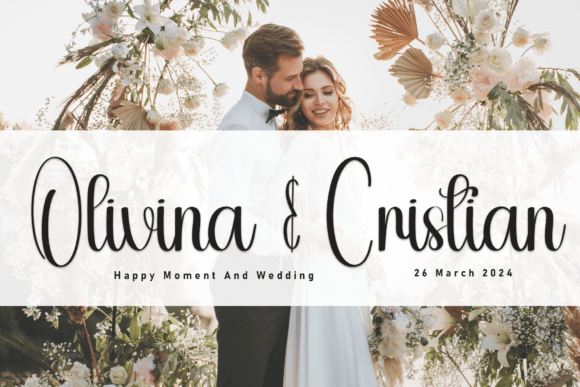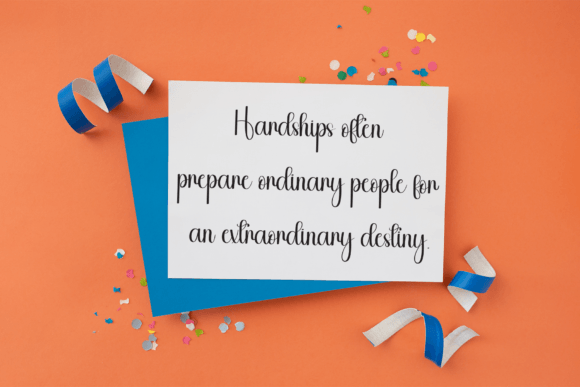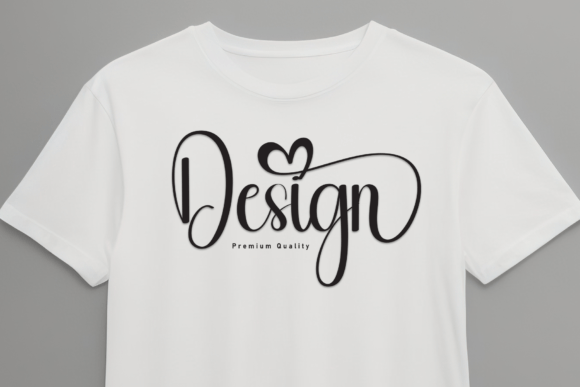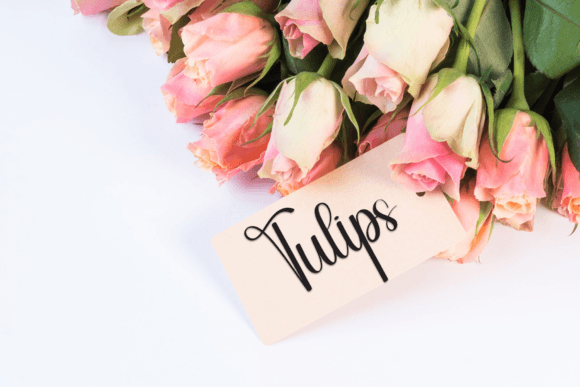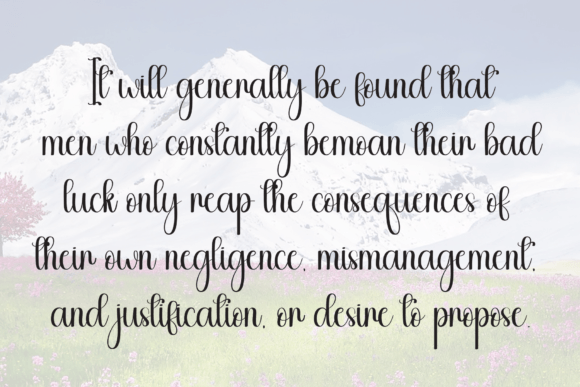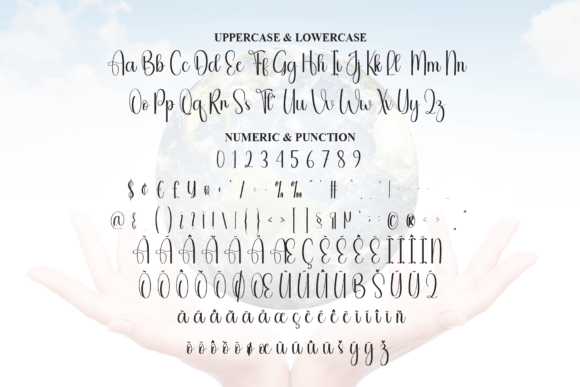
Introducing Earth Font: The Sweet and Friendly Handwritten Display Font
Are you looking for a font that can add a touch of warmth and personality to your designs? Look no further than Earth Font, a beautiful handwritten display font that’s perfect for creating eye-catching wedding invitations, cards, and other creative projects. In this article, we’ll take a closer look at Earth Font, its features, and how you can use it to elevate your designs.
What is Earth Font?
Earth Font is a sweet and friendly handwritten display font that’s designed to bring a sense of fun and playfulness to your designs. With its cute and charming lettering style, this font is ideal for creating designs that require a personal touch. Whether you’re a designer, crafter, or DIY enthusiast, Earth Font is a versatile font that can be used for a wide range of creative projects.
Key Features of Earth Font
So, what makes Earth Font so special? Here are some of its key features:
- Handwritten style: Earth Font has a beautiful handwritten style that’s perfect for creating personal and heartfelt designs.
- Cute and fun: This font is designed to be playful and fun, making it ideal for designs that require a lighthearted touch.
- Display font: Earth Font is a display font, which means it’s perfect for headlines, titles, and other prominent text elements.
- Easy to read: Despite its playful style, Earth Font is easy to read, making it perfect for body text and other longer text elements.
Use Cases for Earth Font
So, how can you use Earth Font in your designs? Here are some ideas to get you started:
- Wedding invitations: Earth Font is perfect for creating beautiful and personalized wedding invitations that set the tone for the big day.
- Cards and stationery: This font is ideal for creating cute and playful cards, invitations, and other stationery items.
- DIY projects: Earth Font is perfect for DIY enthusiasts who want to add a personal touch to their projects, such as scrapbooking, journaling, and crafting.
- Branding and packaging: This font can also be used for branding and packaging projects that require a friendly and approachable tone.
Tips for Using Earth Font
Here are some tips for using Earth Font in your designs:
- Pair with other fonts: Earth Font looks great when paired with other fonts, such as sans-serif fonts or script fonts.
- Use for headlines and titles: This font is perfect for headlines and titles, but can also be used for body text and other longer text elements.
- Experiment with colors: Earth Font looks great in a variety of colors, so don’t be afraid to experiment and find the perfect color scheme for your design.
Earth Font is a beautiful and versatile handwritten display font that’s perfect for designers, crafters, and DIY enthusiasts. With its cute and playful style, this font is ideal for creating eye-catching wedding invitations, cards, and other creative projects. Whether you’re looking to add a personal touch to your designs or create a fun and playful brand identity, Earth Font is a great choice.
Get Creative with Earth Font